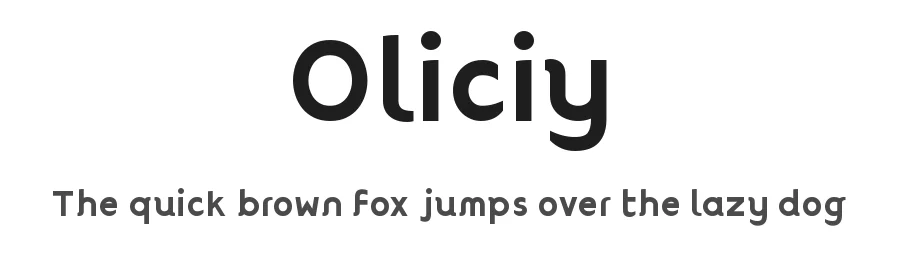
About Belanusa Font
Belanusa is a clean sans-serif designed by Adhi Abel. With 98 glyphs and support for over 104 Latin-based languages, it prioritizes clarity and legibility over decorative flourish or stylistic innovation. The Regular weight and straightforward construction make it an obvious choice for applications where a dependable, no-frills typeface serves the message rather than competing with it. This is typography that stays deliberately out of the way.
Broad language coverage and a compact character set position this font's best role within projects demanding functional, efficient typography: email newsletters, business signage, data presentation materials, and form interfaces all benefit from its understated approach. Workshop guides, accessible web interfaces, and company intranet documents gain clarity through its unadorned letterforms. Its limited glyph count positions it as a workhorse rather than a decorative accent, making it ideal when consistency and readability truly matter most.
Belanusa Font is a versatile sans-serif font that works for both headings and body text. Pair it with a contrasting serif or slab serif font to add visual interest and a clear distinction between titles and body copy.
Belanusa Font
by Adhi Abel